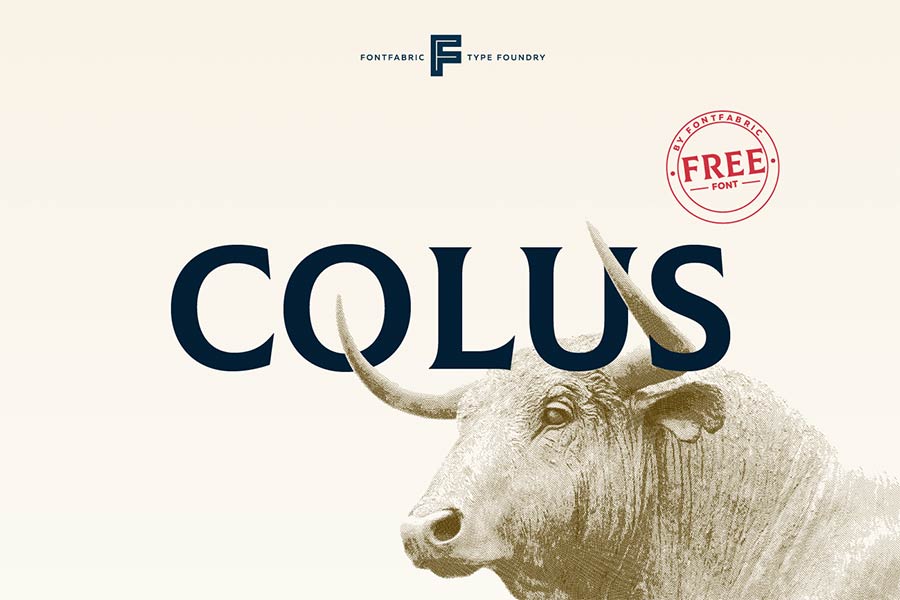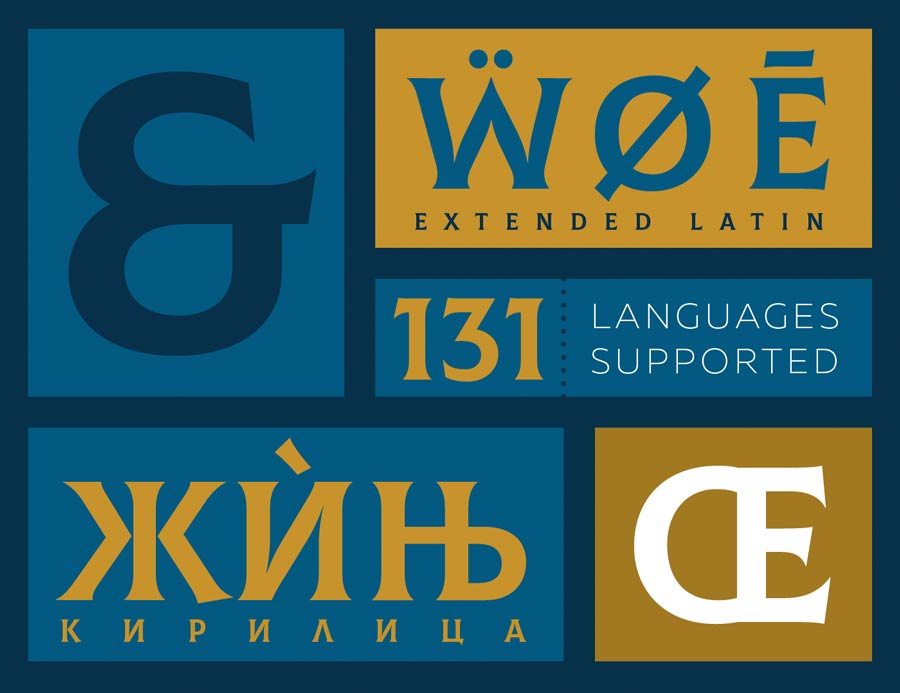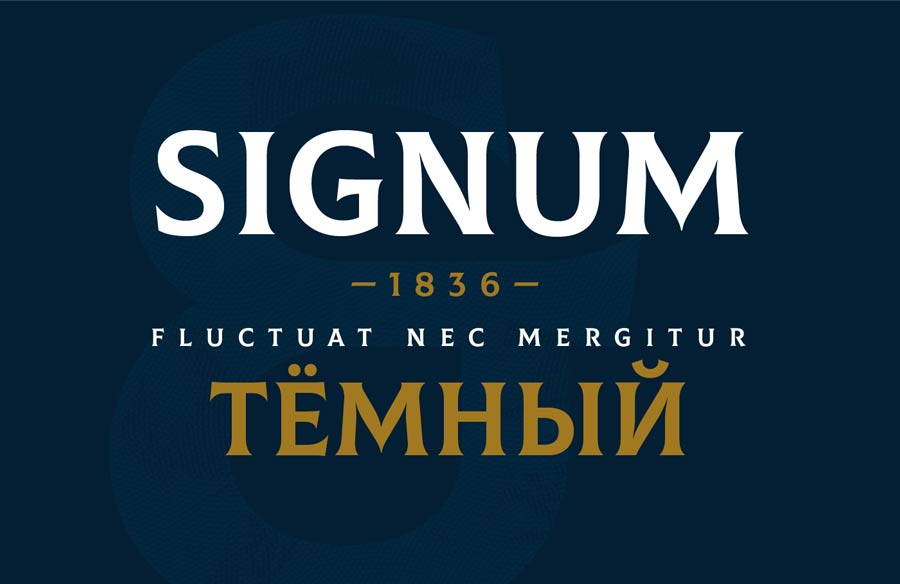
Colus is a free display font that has elegant stroke with serif finish. According to the designer, this font design was inspired by stone and wooden carved letter inscriptions. Certainly it has the classic retro feel like, which is suitable for headlines, poster designs, logo and signages design.
Colus comes with uppercase letters and it has broad support for many Latin and Cyrillic based languages. You can use it for both personal and commercial works.